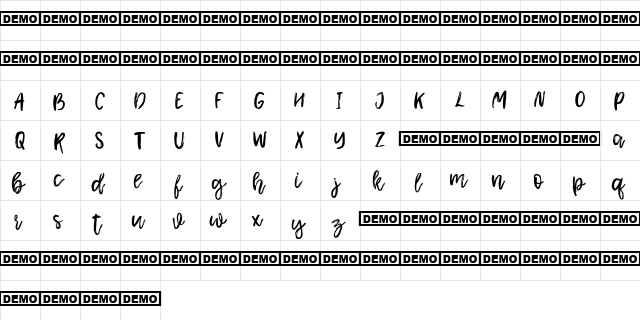
Shamber Regular
Design Context for Shamber Typeface
Shamber is a composed and adaptable typeface that performs quietly and consistently across a wide range of design contexts.